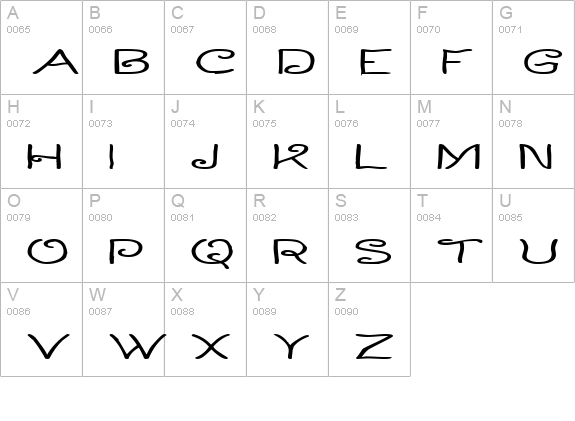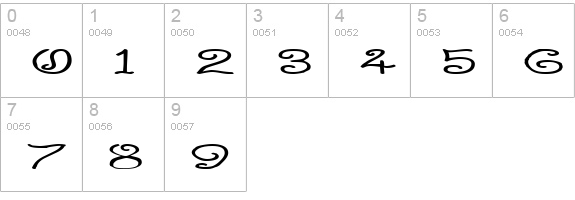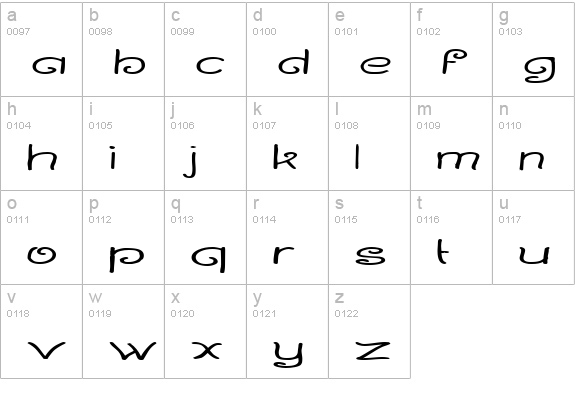
Curlmudgeon Wideside Font Details
Introducing Curlmudgeon Wideside font, a whimsical and charming typeface that exudes a sense of nostalgia and elegance. This font features unique curls and swirly accents that add a touch of playfulness to any design project. Perfect for invitations, greeting cards, posters, and more, Curlmudgeon Wideside font is sure to make your text stand out and capture attention. What's even better is that Curlmudgeon Wideside font is completely free to download at FontsMarket.com. Yes, you read that right - you can enhance your projects with this beautiful font without spending a penny. Don't miss out on the opportunity to add a touch of vintage flair to your designs with Curlmudgeon Wideside font. Download it now and let your creativity soar!